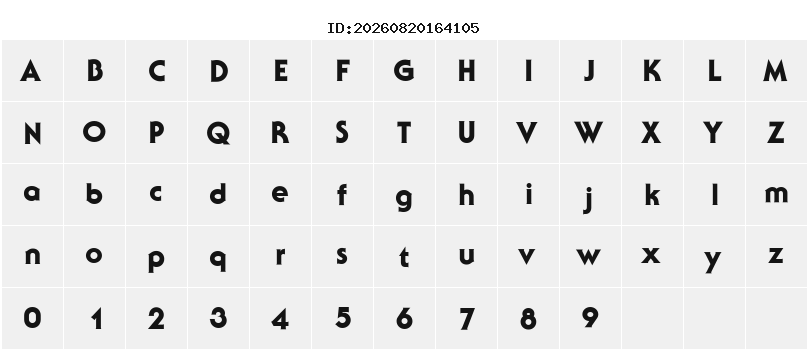
• Font Name: SerifGothicEF-Heavy
• Full Font Name: SerifGothicEF-Heavy
• PostScript Name: SerifGothicEF-Heavy
• Manufacturer: Adobe Systems Incorporated
About SerifGothicEF-Heavy.ttf
SerifGothicEF-Heavy.ttf is a modern, elegant sans-serif font designed for ultimate readability and visual harmony. Perfect for branding, headlines, web design, and print materials.